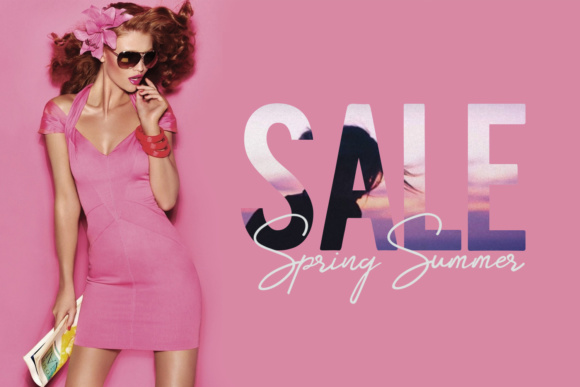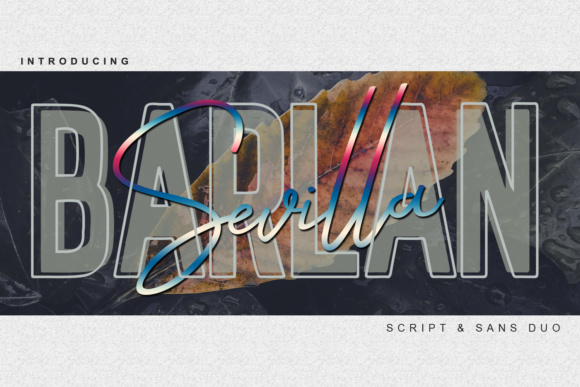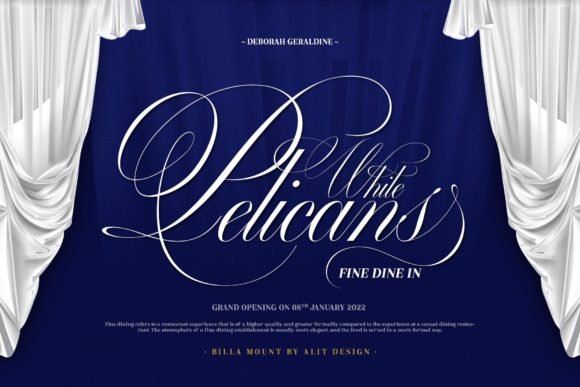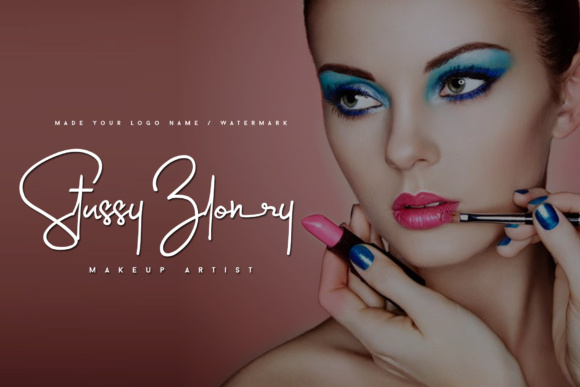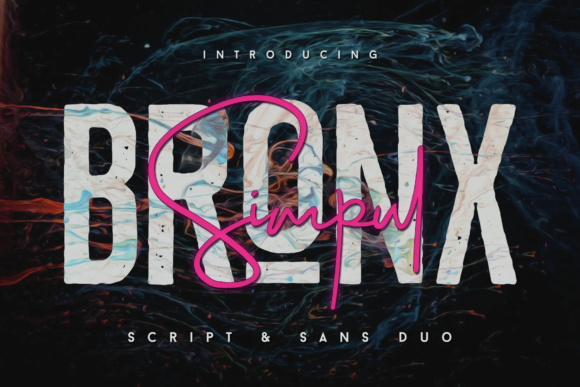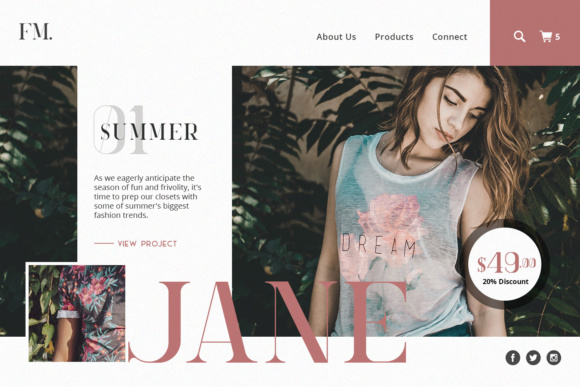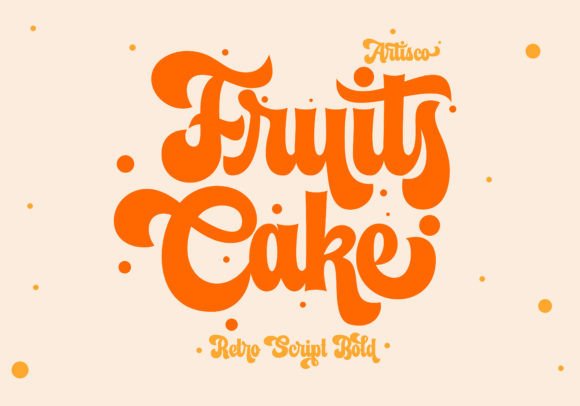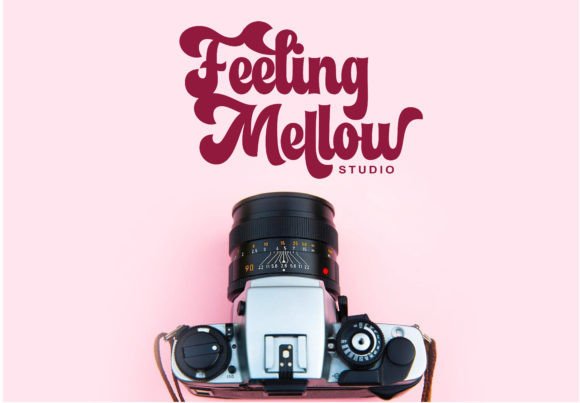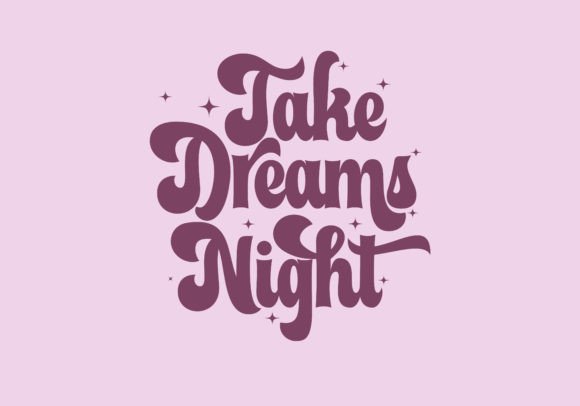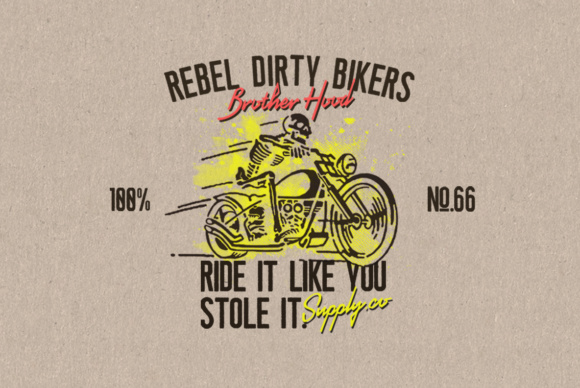
21 Best Contemporary Script Fonts for Modern Branding in 2026
Introduction: The Power of Contrast in Modern Design
In a crowded digital landscape, generic design is completely invisible. To truly capture an audience’s attention, your brand visuals need a distinct, unforgettable rhythm. The secret doesn’t lie in overcomplicating your layouts—it lies in mastering visual contrast.
By anchoring expressive, fluid hand-lettering with the clean structure of minimalist Sans Serif Fonts, you create an immediate focal point that feels both cutting-edge and deeply human.
Whether you are launching a bold streetwear label, designing luxury product packaging, or curating viral social media templates, the right typographic pairing does the storytelling for you before a client even reads a single word.
Expert Insight: Why Contemporary Script Fonts Matter
“Typography is the visual voice of your brand; contemporary scripts ensure that voice feels authentically human.”
In design, trends cycle rapidly, but the need for emotional connection remains constant. Standard, rigid fonts can often make digital assets feel cold, corporate, and detached. This is exactly why contemporary script fonts have become a critical secret weapon for professional designers:
• Breaking the Digital Monotony: Contemporary scripts disrupt perfectly uniform grids with fluid baselines, organic curves, and unexpected textures. They bring an artisanal, custom-made feel to a layout that standard typefaces simply cannot replicate.
• The Psychology of Imperfection: Modern consumers gravitate toward brands that feel real and approachable. The sweeping flourishes and handwriting-inspired strokes of a modern script mimic human touch, instantly building trust and emotional resonance.
• Versatility via Strategic Contrast: When used correctly, a powerful script doesn’t compete with your layout—it elevates it. By utilizing these striking scripts exclusively for high-impact headlines and balancing them with structural, clean Sans Serif Fonts for secondary text, you achieve a sophisticated, gallery-grade balance that keeps your audience engaged and scrolling.
Quick Table: Ultimate Font Summary
If you are short on time, here is a quick breakdown of my favorite Contemporary Script Fonts from this collection. Use this to find the perfect vibe for your project at a glance:
Font NameType / StyleMood & CharacterBest PairingsPerfect For
Rise of BeautyFont Duo (Script + Sans)Elegant, modern, balancedBuilt-in Sans, minimalist Sans Serif FontsLogos, branding, wedding stationery
Chrono SphereFont Duo (Script + Serif)Timeless, sophisticated, high-contrastBuilt-in Serif, clean Sans Serif FontsPremium headlines, luxury brands, posters
Simple HandwritingScript / HandwrittenNatural, relaxed, authenticStructural Sans Serif FontsSignatures, watermarks, personal branding
The Friday SundayFont Duo (Script + Sans)Laid-back, trendy, polishedBuilt-in Sans, neat Sans Serif FontsLifestyle brands, social media, packaging
GlamiraScript / RomanticRefined, high-fashion, heart-accentedGeometric Sans Serif FontsInvitations, beauty branding, fashion layouts
Sweetty HandmadeCalligraphy / Winter-themedLuxurious, festive, artisanalSimple, thin Sans Serif FontsHoliday cards, wedding invites, display work
Reagen YouthScript Blackletter / TattooEdgy, urban, confidentBold grotesque Sans Serif FontsStreetwear, merch, music posters, logos
Billa MountScript / PremiumRavishing, sweeping, high-endStrict, classic Sans Serif FontsExclusive logos, luxury packaging, signatures
Happy BirthdayFont Trio (Script + Alts)Playful, dynamic, feminineWatercolor textures, basic Sans Serif FontsGreeting cards, quotes, handmade businesses
MintScript / YouthfulWhimsical, rounded, energeticLight, open Sans Serif FontsKids’ products, vibrant socials, casual branding
Fruits CakeScript Display / RetroThick, nostalgic, smoothEditorial layouts, clean Sans Serif FontsRetro-chic fashion, food branding, magazines
ElvairaScript / Elegant HandwritingPolished, fluid, highly legibleUniversal Sans Serif FontsPlanners, stationery, product labeling, quotes
LuminetteScript / DelicateEnchanting, mesmerizing, gracefulFine, gallery-style Sans Serif FontsWedding decor, monograms, delicate branding
Bronx SimpulFont Duo (Sans + Script)Urban, modern, dual-texturedBuilt-in Sans, minimalist Sans Serif FontsStreetwear branding, modern logos, social media
Neon AbsoluteFont Duo (Script + Sans)Vibrant, retro-futuristic, energeticBuilt-in Sans, clean geometric Sans Serif FontsNightlife flyers, neon signs, bold advertisements
Pregnant RetroScript FontNostalgic, bold, smooth-curvedStructural, simple Sans Serif FontsVintage packaging, retro apparel, editorial headers
Luscious QuinnDuo FontElegant, sophisticated, high-endBuilt-in pairing, minimalist Sans Serif FontsLuxury branding, fashion logos, wedding stationery